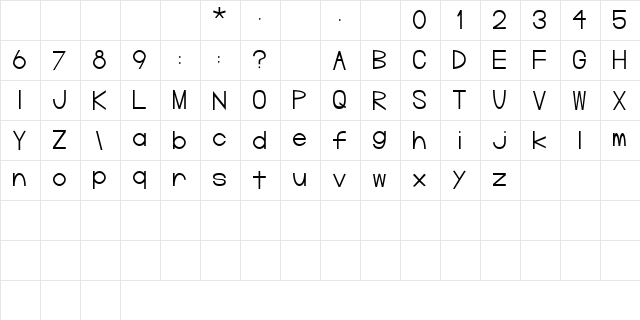
PineLintGerm Normal
Design Context for PineLintGerm Typeface
PineLintGerm takes a measured approach to typography — its balanced proportions and neutral character make it a reliable workhorse for both digital and print work.